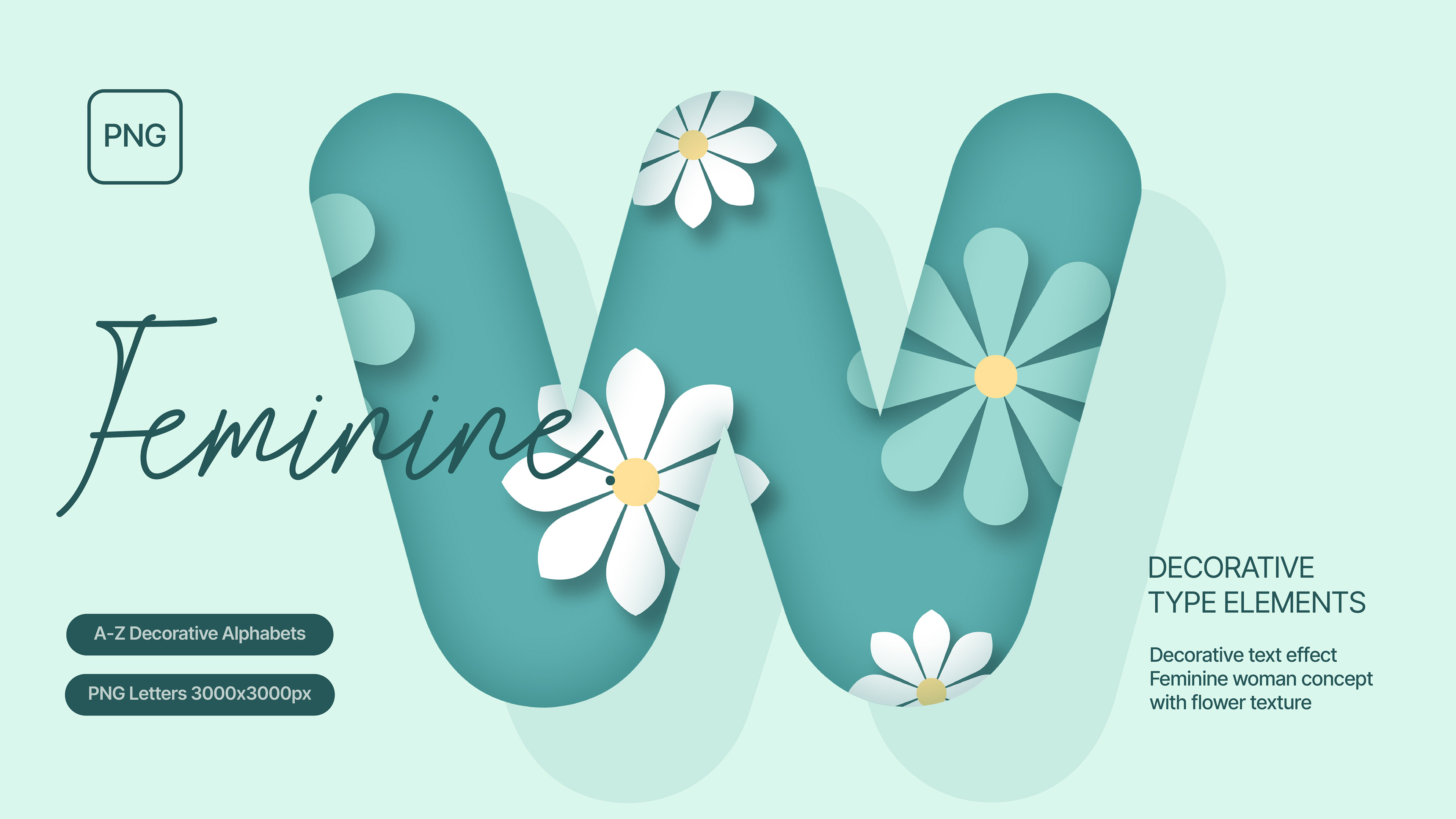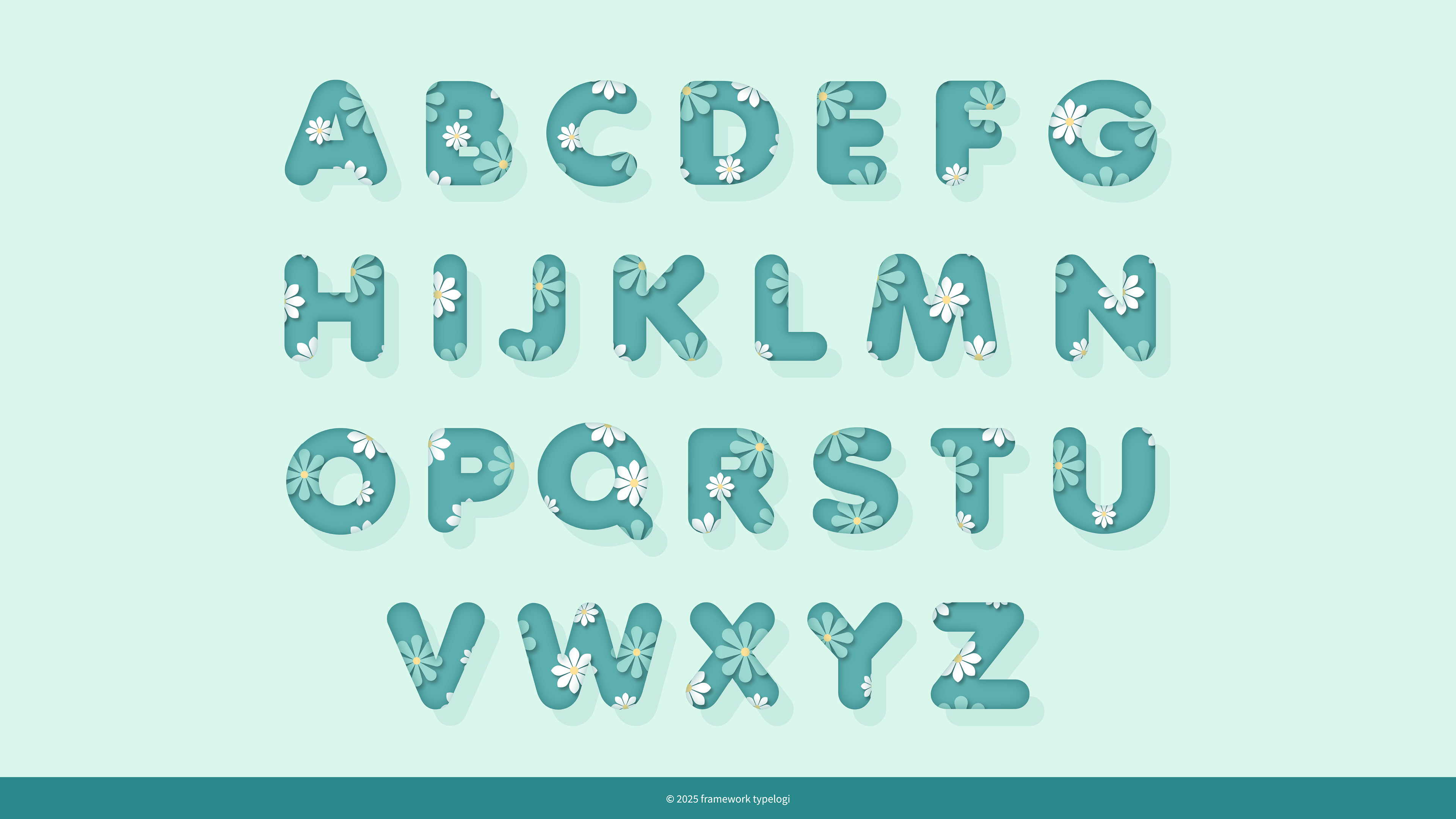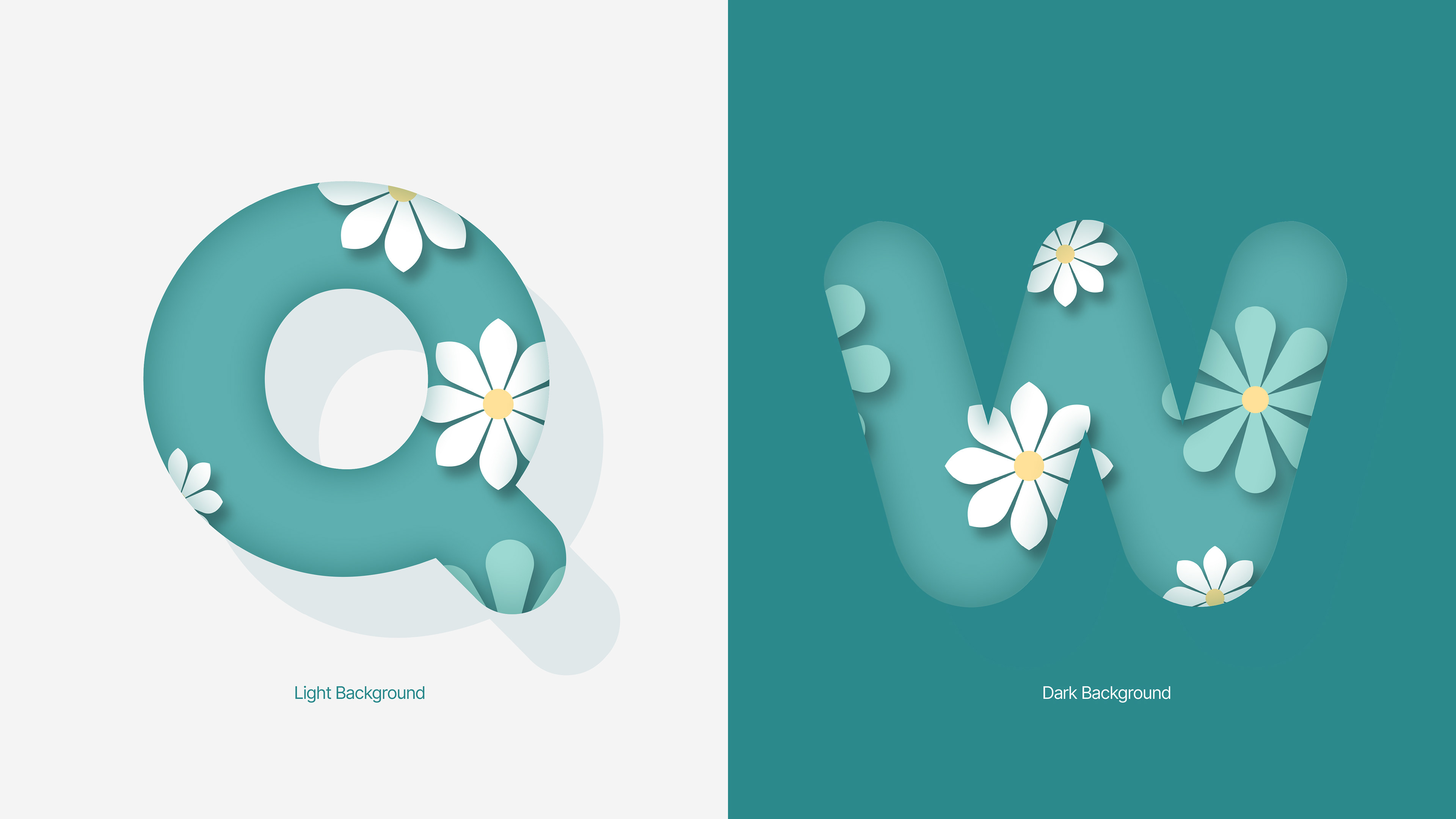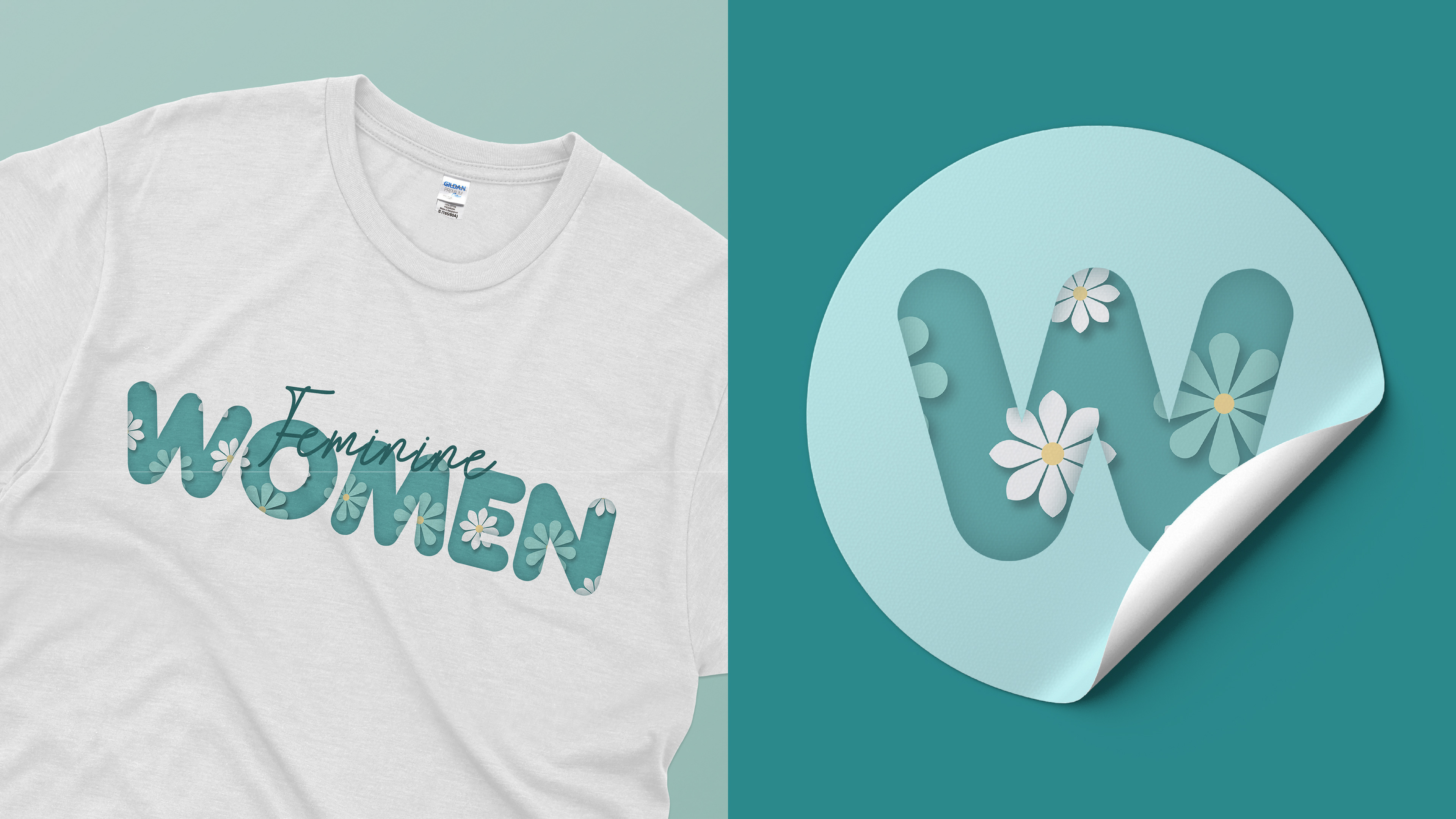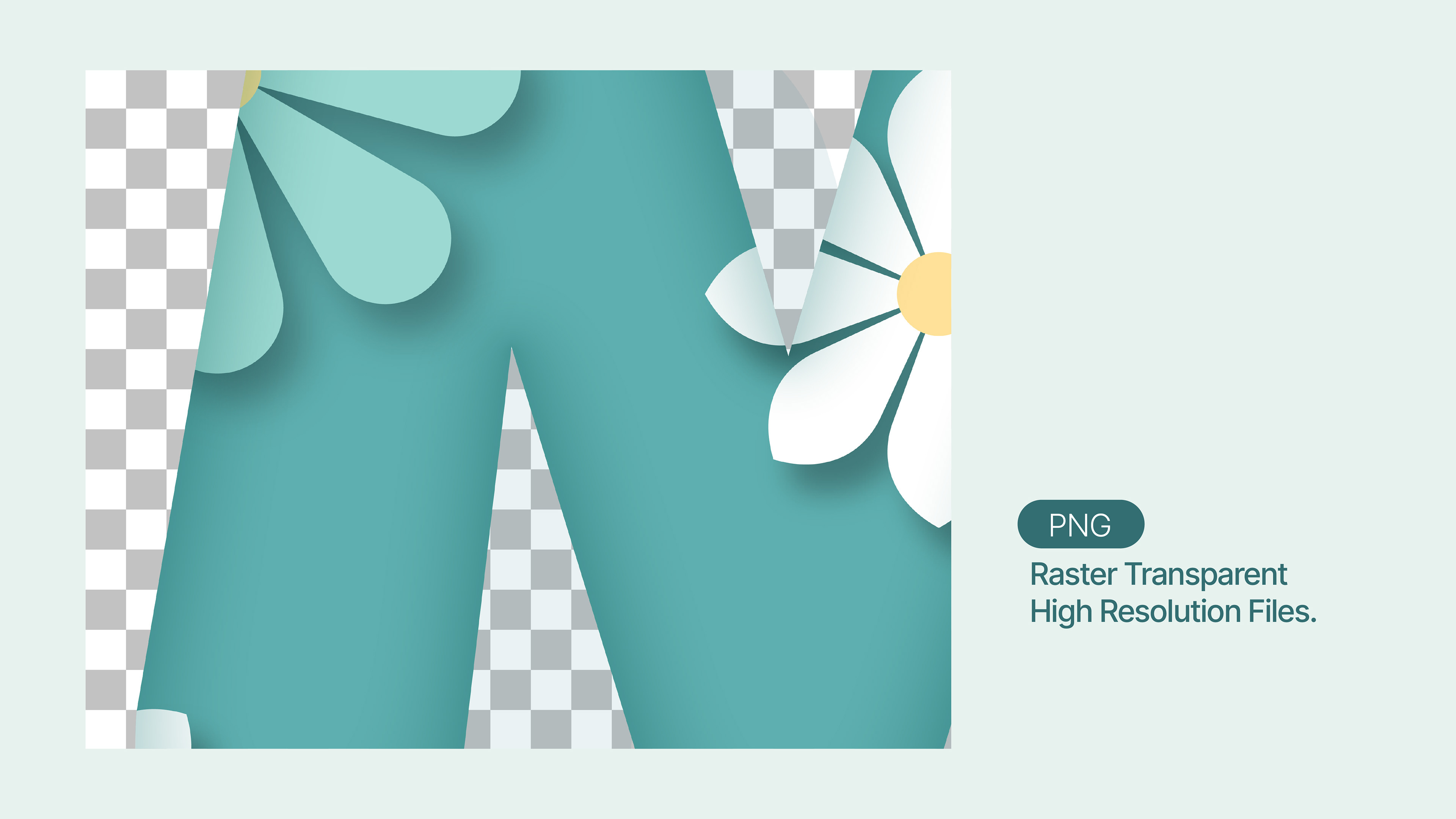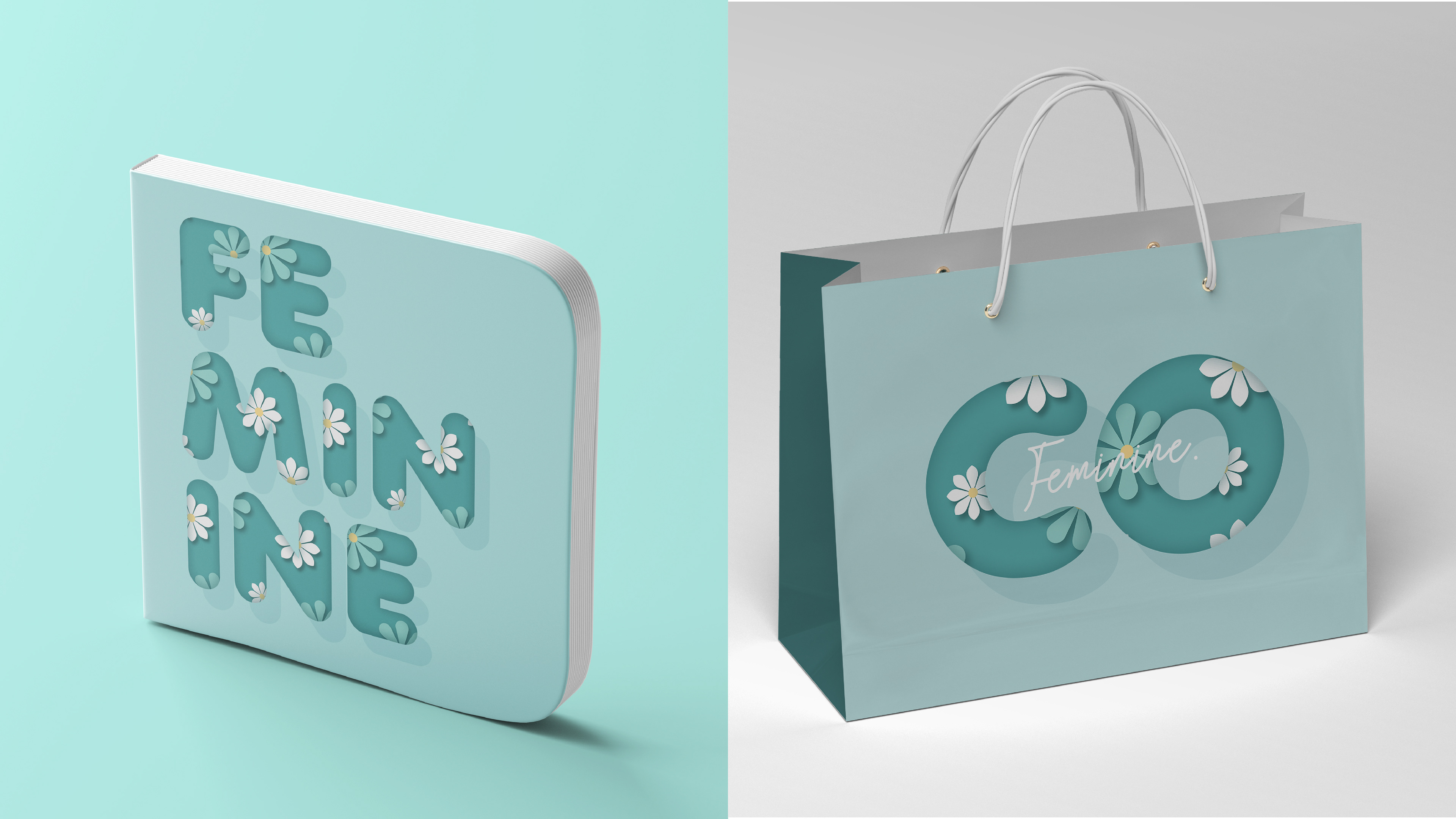
Text Effect of Uppercase Tosca flower texture rounded Woman A – Z Alphabet initial Poster logo transparent. Suitable for Desk setup, Decoration, Printing, Creative Industry, Small business